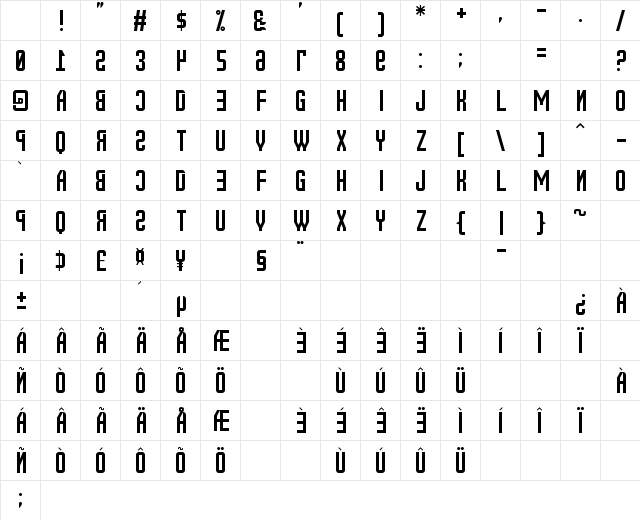
Complete New Russia 2108 St Regular glyph index. Displaying only characters natively supported by New Russia 2108 St Regular font.
New Russia 2108 St is a composed and adaptable typeface that performs quietly and consistently across a wide range of design contexts.